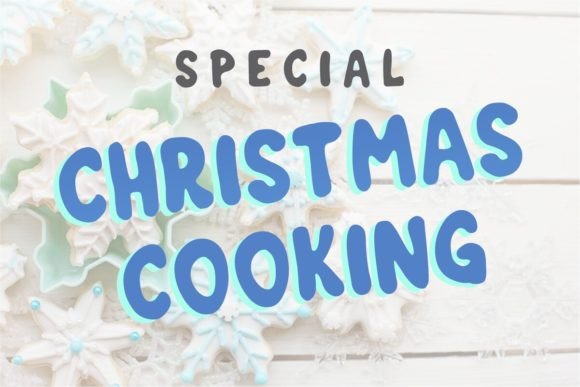
Cookies Snowing Font: The Perfect Addition to Your Creative Projects
Are you looking for a font that can add a touch of fun and whimsy to your creative projects? Look no further than the Cookies Snowing font! This kid-friendly display font is perfect for making your projects stand out, and its versatility makes it suitable for a wide range of applications.
What is Cookies Snowing Font?
Cookies Snowing font is a unique and playful display font that is designed to bring a smile to your audience’s faces. Its fun and quirky design makes it perfect for projects that require a touch of whimsy and personality. Whether you’re working on a children’s book, a sticker design, or a social media post, this font is sure to make your project extraordinary.
Features of Cookies Snowing Font
Cookies Snowing font has several features that make it an excellent choice for your creative projects. Some of its key features include:
- Kid-friendly design: The font’s playful and fun design makes it perfect for projects aimed at children.
- Display font: The font’s bold and eye-catching design makes it perfect for headlines, titles, and other display purposes.
- Versatile: The font can be used for a wide range of projects, including shirts, stickers, book covers, social media posts, and invitations.
Uses of Cookies Snowing Font
Cookies Snowing font is a versatile font that can be used for a wide range of projects. Here are some of the ways you can use this font:
- Shirts and apparel: The font’s bold and playful design makes it perfect for designing fun and quirky shirts and apparel.
- Stickers and labels: The font’s fun design makes it perfect for creating stickers and labels that are sure to grab attention.
- Book covers and children’s books: The font’s kid-friendly design makes it perfect for creating book covers and illustrations for children’s books.
- Social media posts: The font’s playful design makes it perfect for creating fun and engaging social media posts.
- Invitations and party decorations: The font’s fun and festive design makes it perfect for creating invitations and party decorations.
Benefits of Using Cookies Snowing Font
Using Cookies Snowing font can bring several benefits to your creative projects. Some of the benefits include:
- Unique and eye-catching design: The font’s unique and playful design is sure to grab attention and make your project stand out.
- Kid-friendly: The font’s kid-friendly design makes it perfect for projects aimed at children.
- Versatile: The font can be used for a wide range of projects, making it a great addition to your font library.
- Easily readable: The font is easily readable, making it perfect for both digital and print projects.
Tips for Using Cookies Snowing Font
Here are some tips for using Cookies Snowing font:
- Use it for headlines and titles: The font’s bold and eye-catching design makes it perfect for headlines and titles.
- Pair it with other fonts: The font can be paired with other fonts to create a unique and interesting design.
- Use it for digital and print projects: The font is easily readable and can be used for both digital and print projects.
- Experiment with different colors and sizes: The font’s fun design makes it perfect for experimenting with different colors and sizes.
Cookies Snowing font is a fun and playful display font that is perfect for making your creative projects stand out. Its kid-friendly design and versatility make it suitable for a wide range of applications, from shirts and stickers to book covers and social media posts. With its unique and eye-catching design, easily readable text, and versatility, Cookies Snowing font is a great addition to any font library.
Here are some frequently asked questions about Cookies Snowing font:
- What is Cookies Snowing font?: Cookies Snowing font is a fun and playful display font that is perfect for making your creative projects stand out.
- Is Cookies Snowing font kid-friendly?: Yes, Cookies Snowing font is kid-friendly and suitable for projects aimed at children.